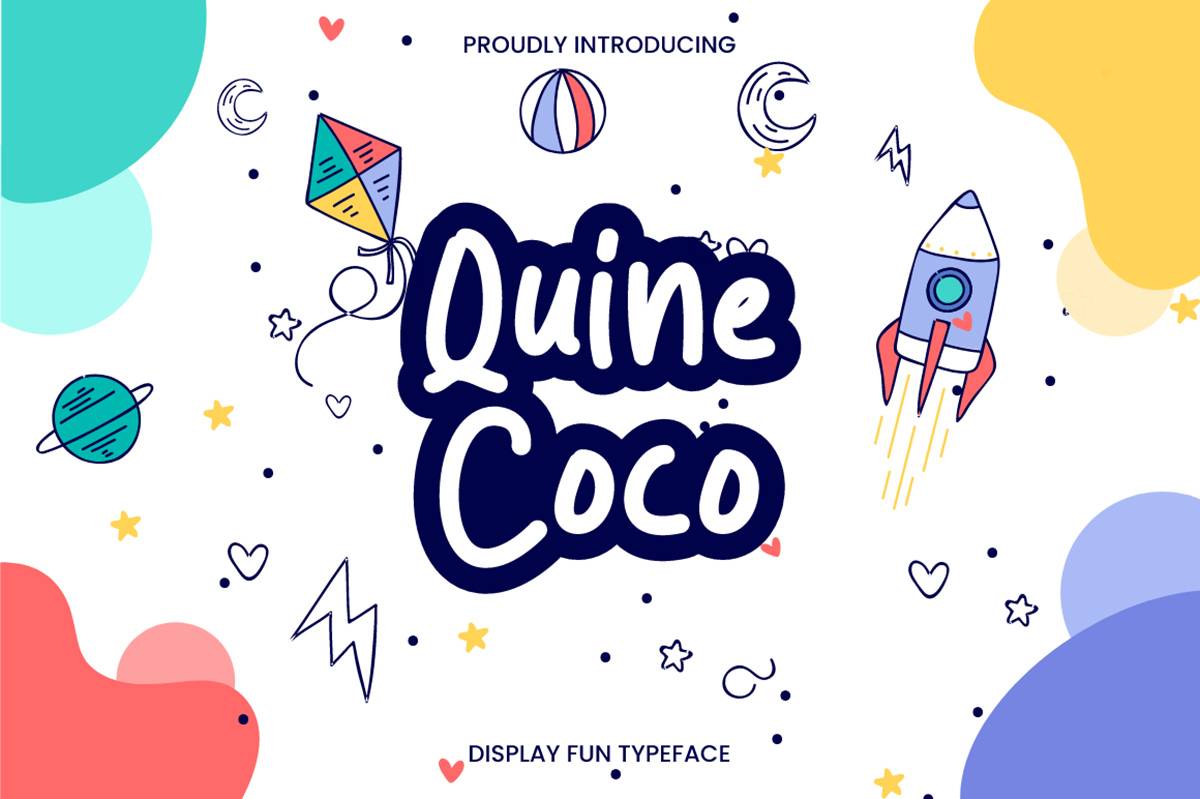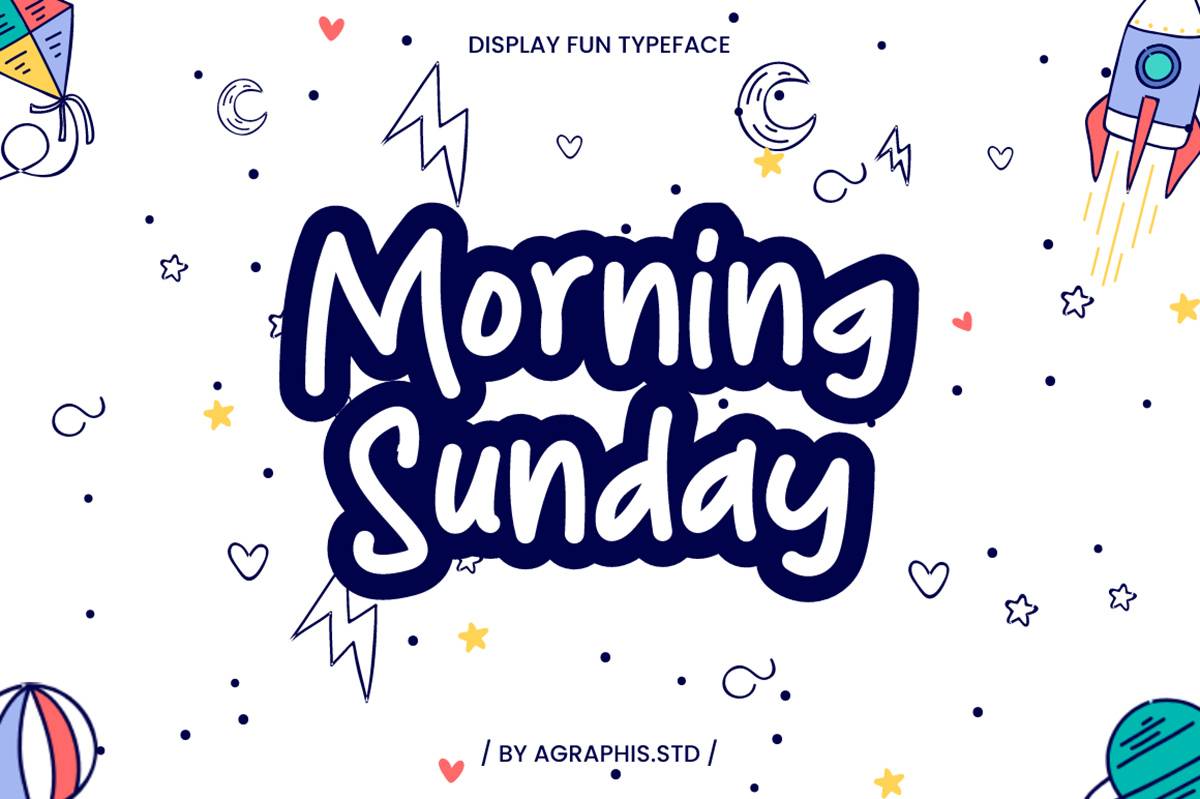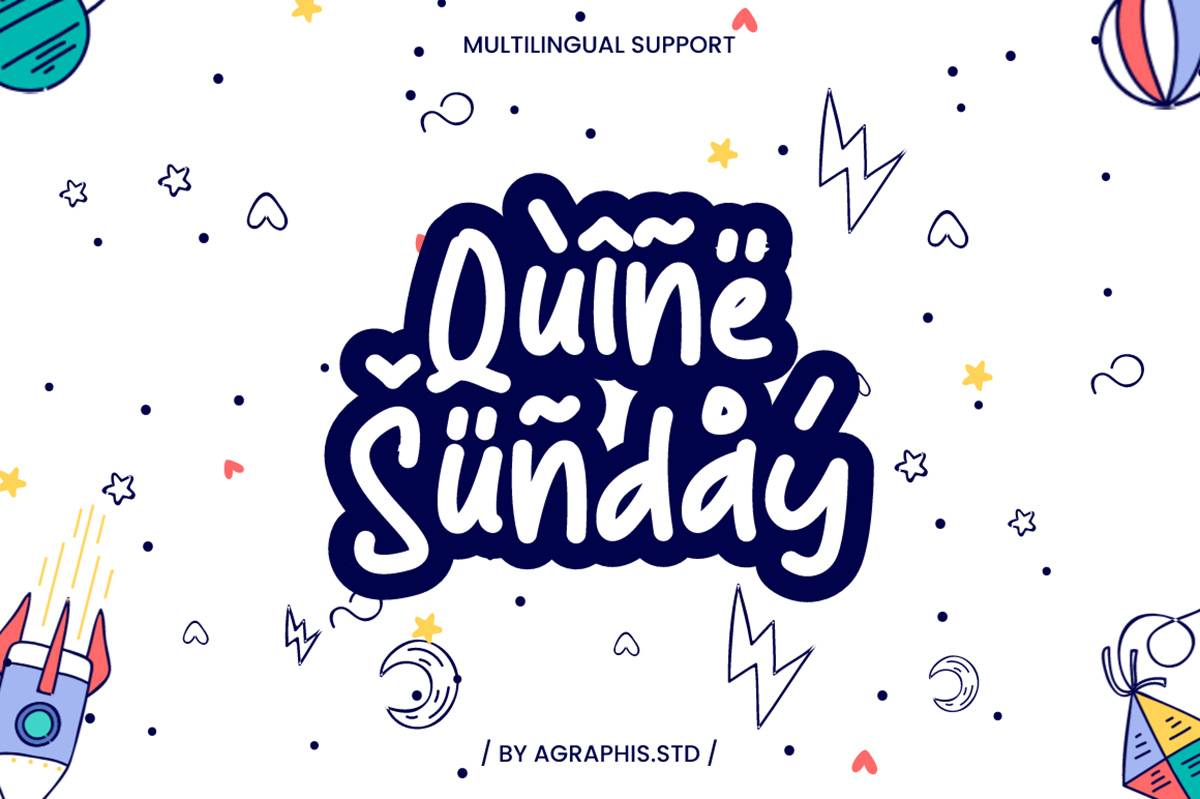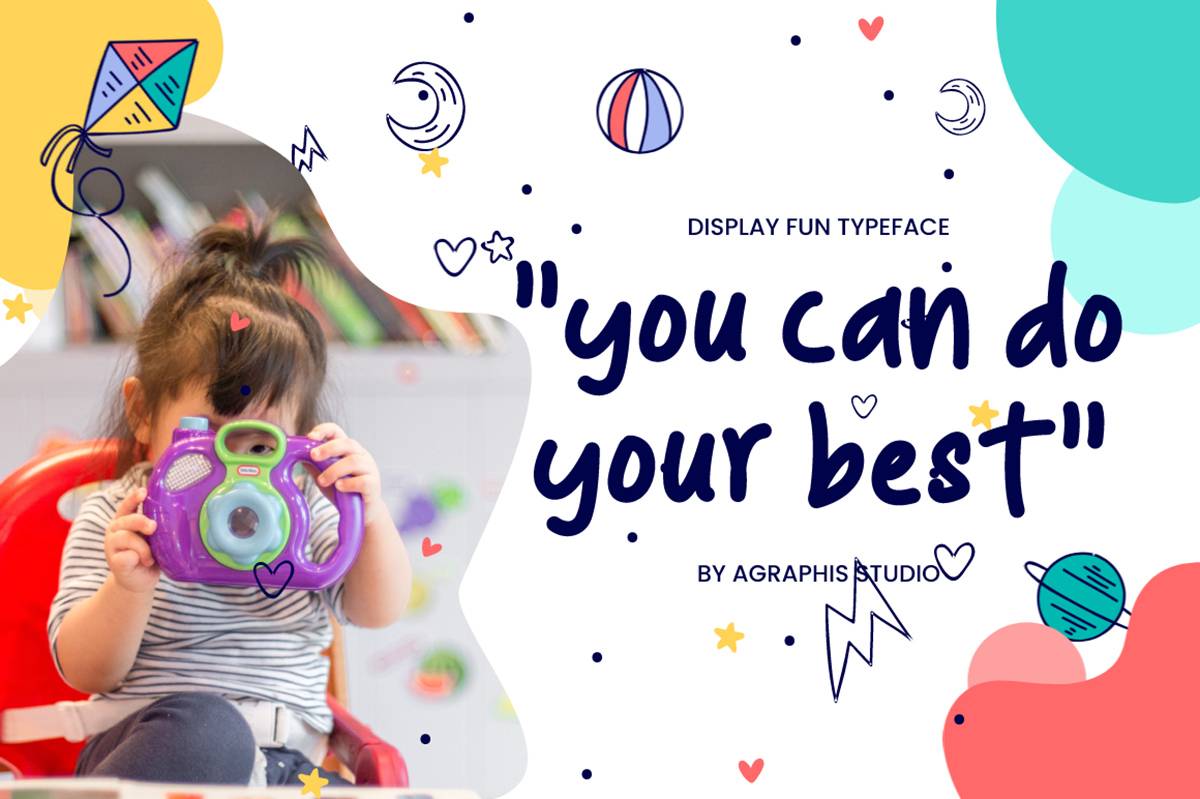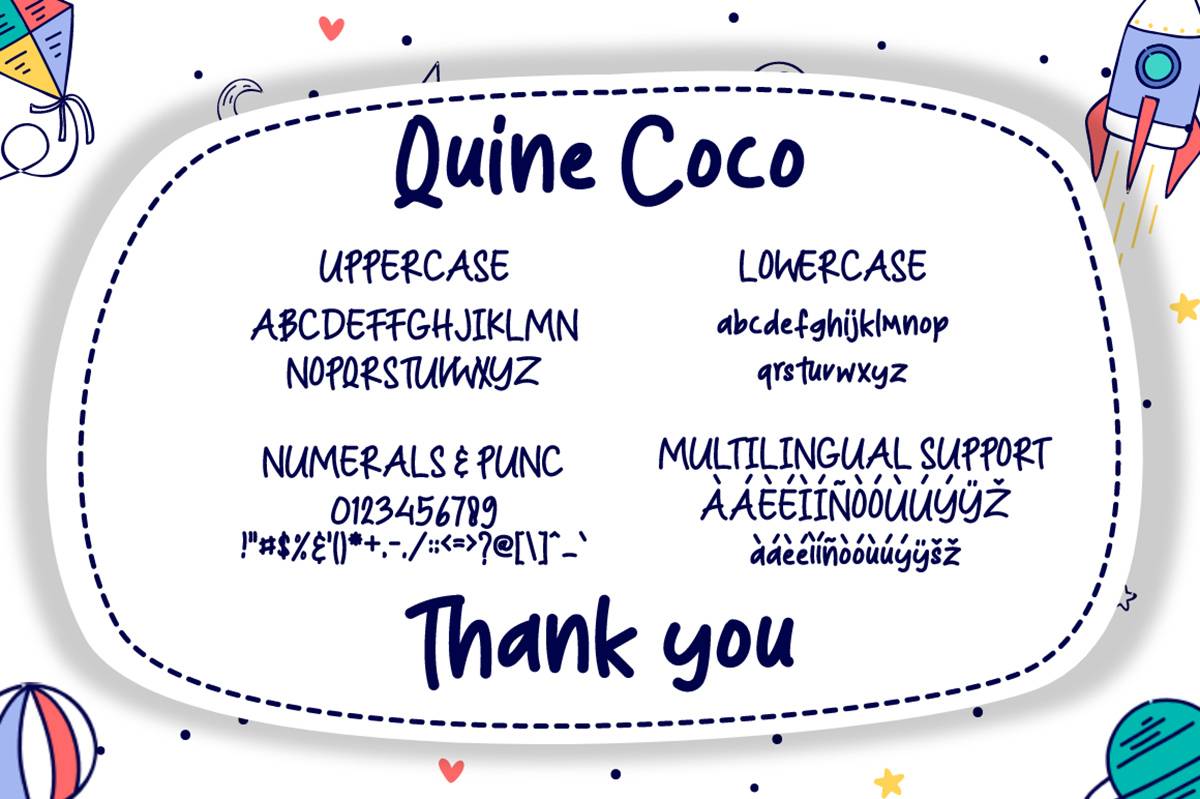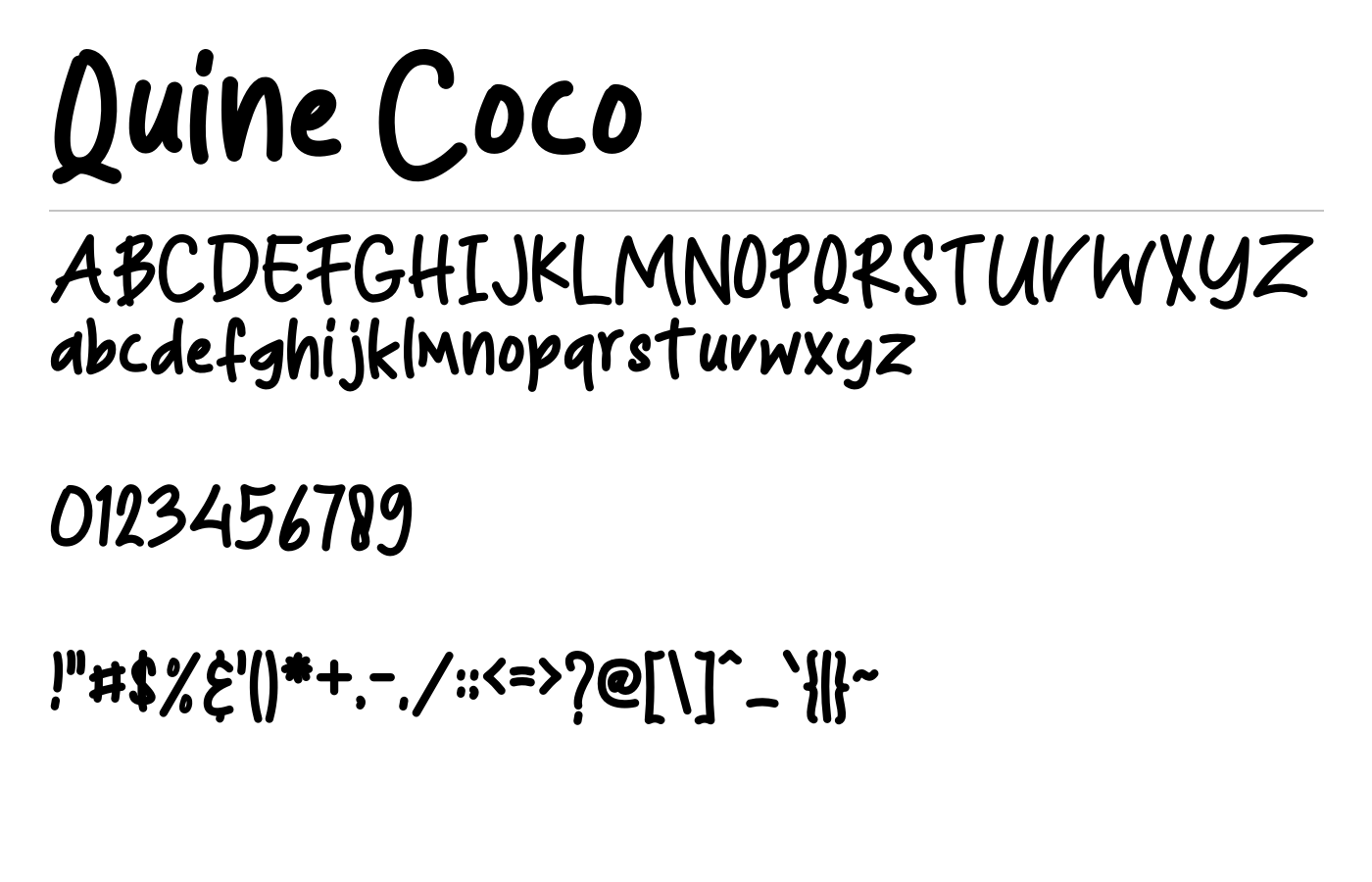
Quine Coco is a casual, handwritten-style sans serif font with a playful and friendly vibe. It features moderately thick strokes with a slightly irregular, organic feel that adds personality and warmth, making it great for informal and creative designs. This font works well for logos, invitations, or any project seeking a personal, approachable touch.
Quine Coco Font
About Quine Coco Font
| Font family | Quine Coco Font |
| Designer | Alfin Nedi |
| Trademark | Agraphis Studio Co.™ |